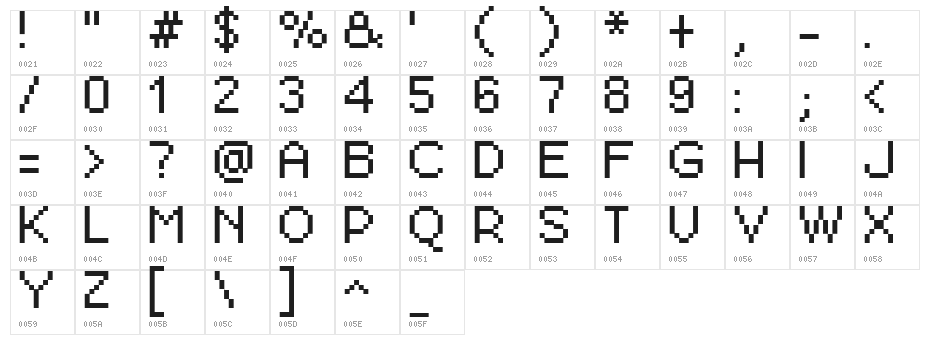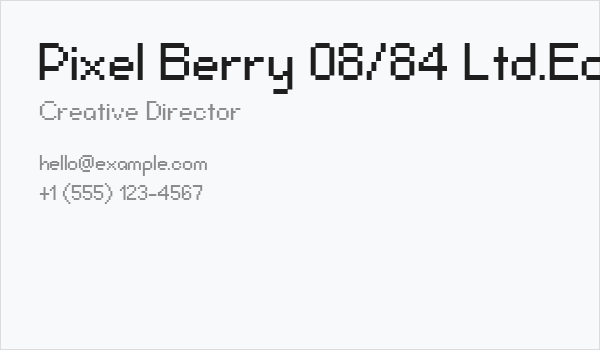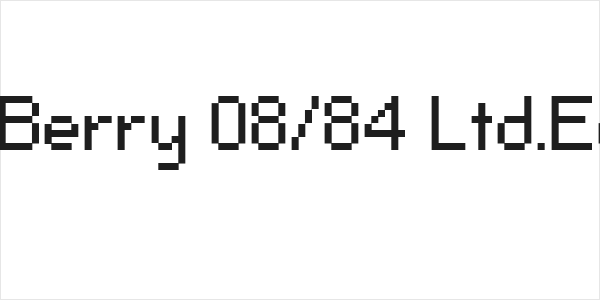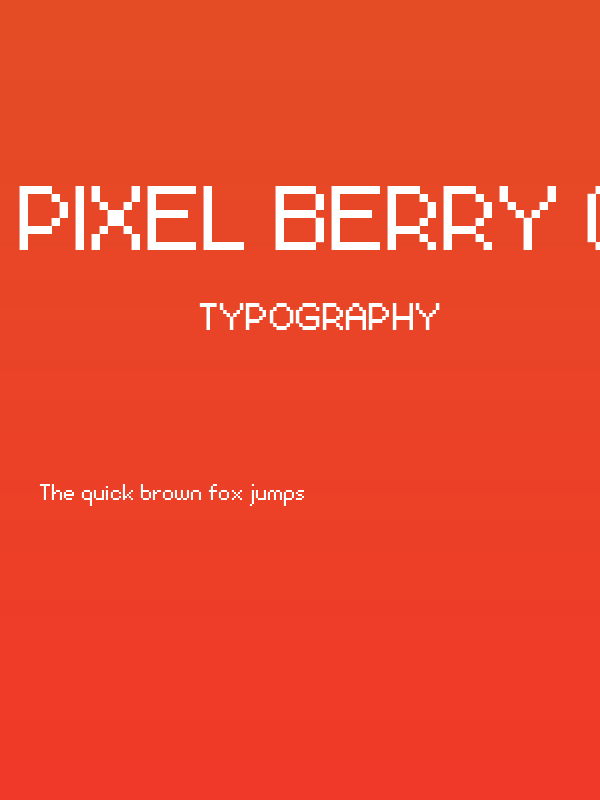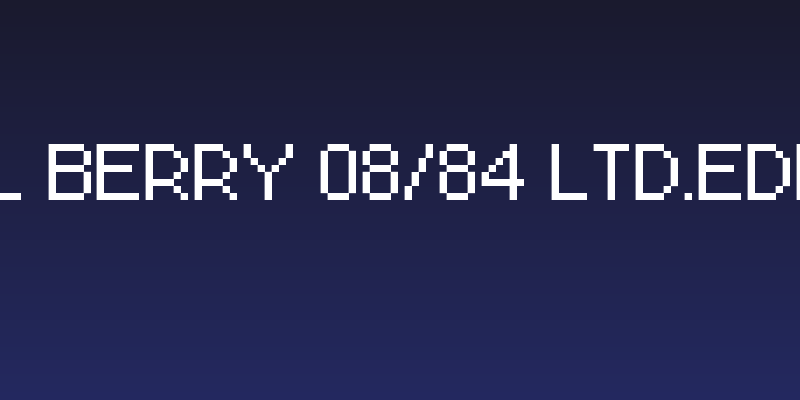
Pixel Berry 08/84 Ltd.Edition Font
Pixel Berry 08/84 Ltd.Edition Description
This font features a pixelated design reminiscent of early digital displays and video games. Each character is constructed using a grid-like pattern, giving it a distinctly retro and digital aesthetic. The uppercase and lowercase letters maintain a uniform height, contributing to a cohesive and structured appearance. Numbers and special characters are crafted with the same pixelated style, ensuring consistency across all glyphs. The font's simplicity and blocky nature make it ideal for projects that aim to evoke nostalgia or a tech-inspired theme.
| Overall Style | Retro, Digital |
| Use Case | Headlines, Logos, Digital displays |
| Proposed Projects | Ideal for video game design, retro-themed posters, digital art projects, and tech-inspired branding. |